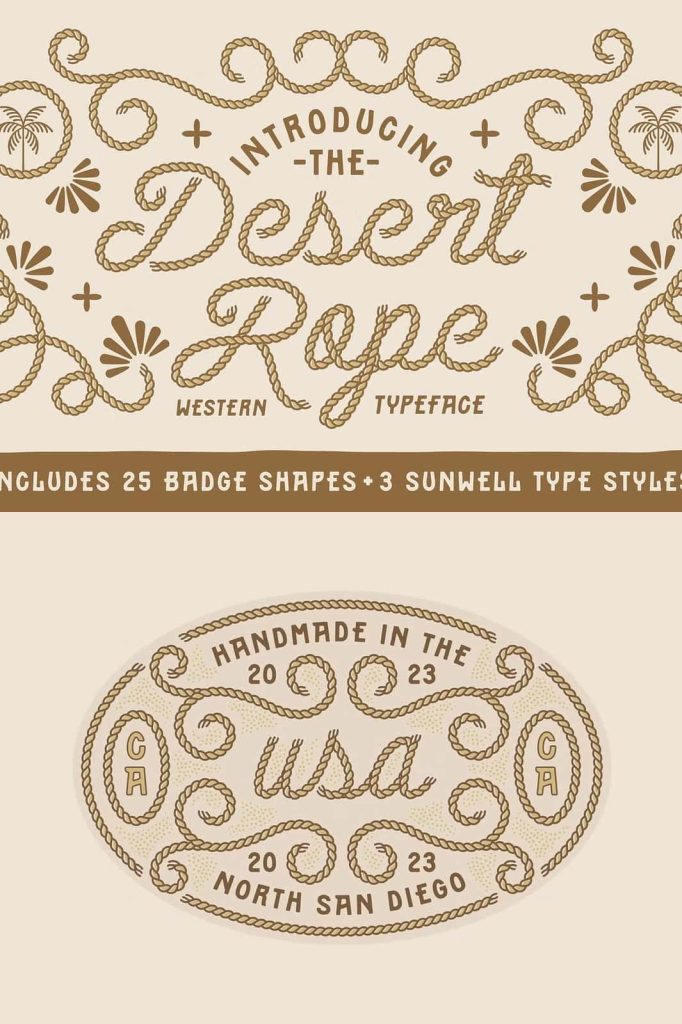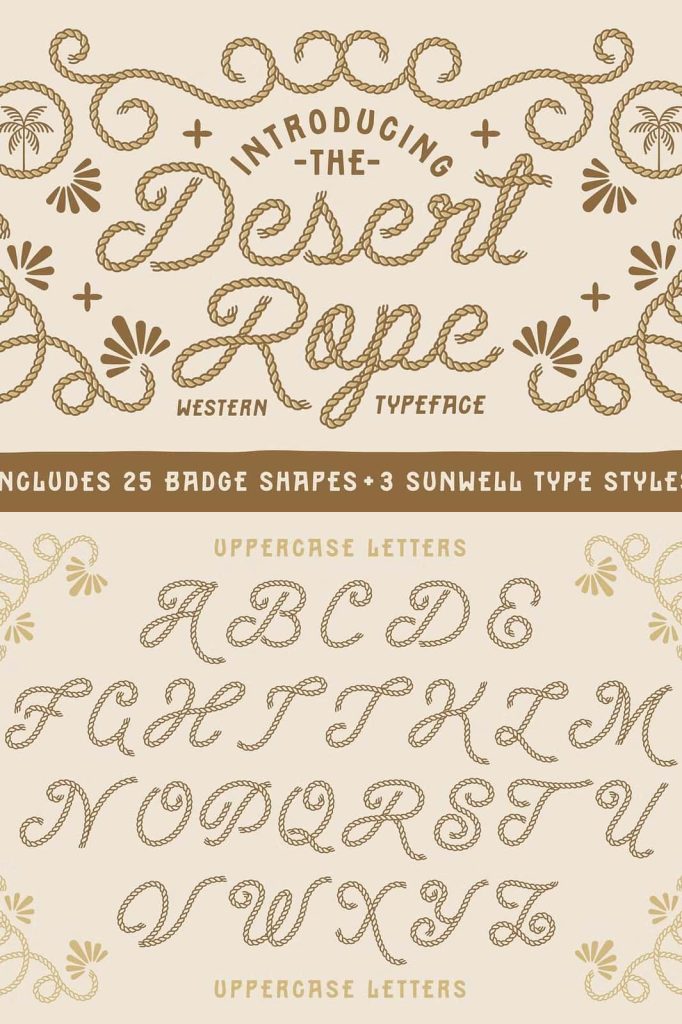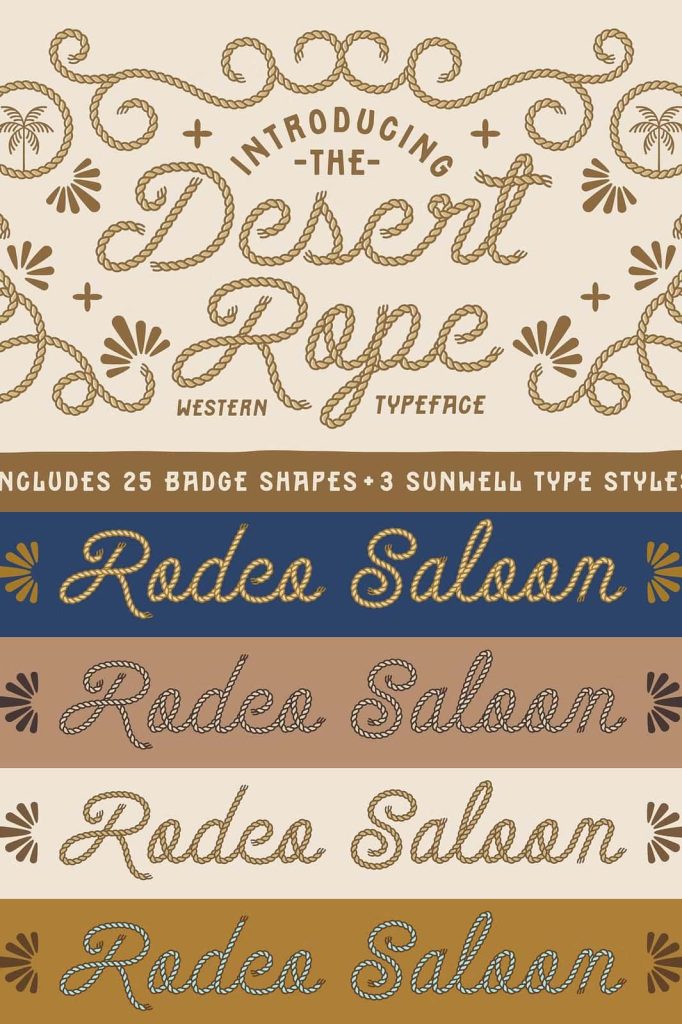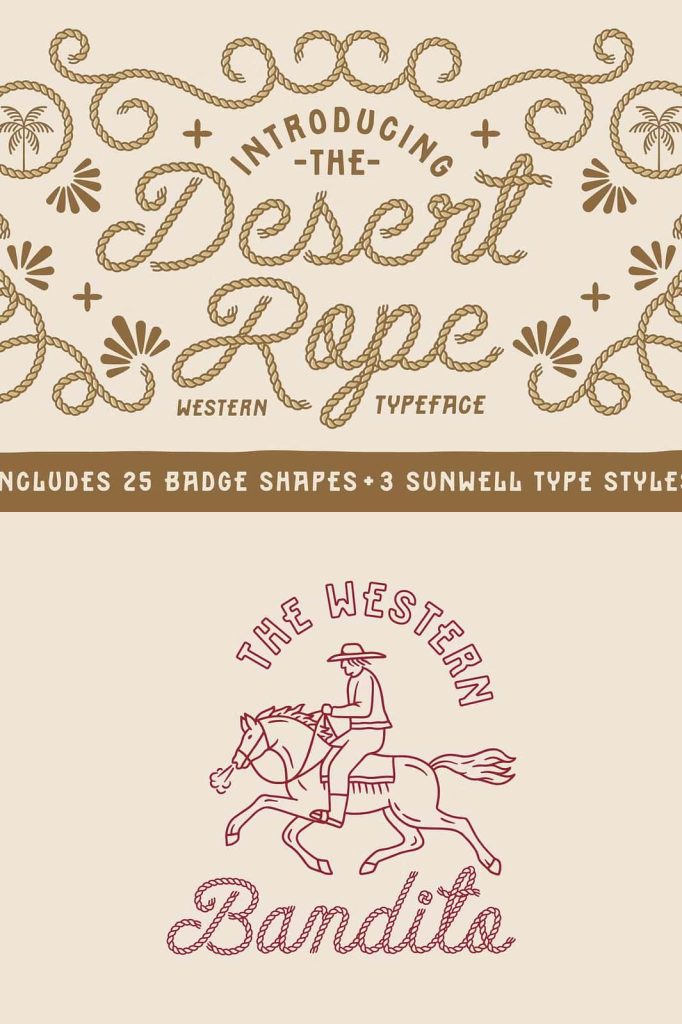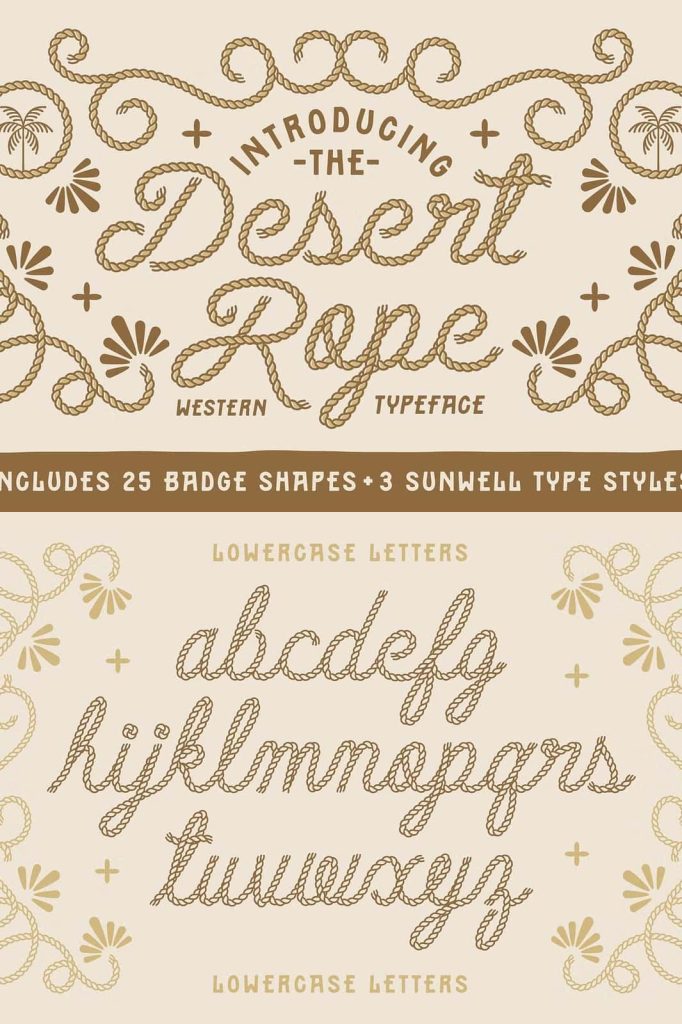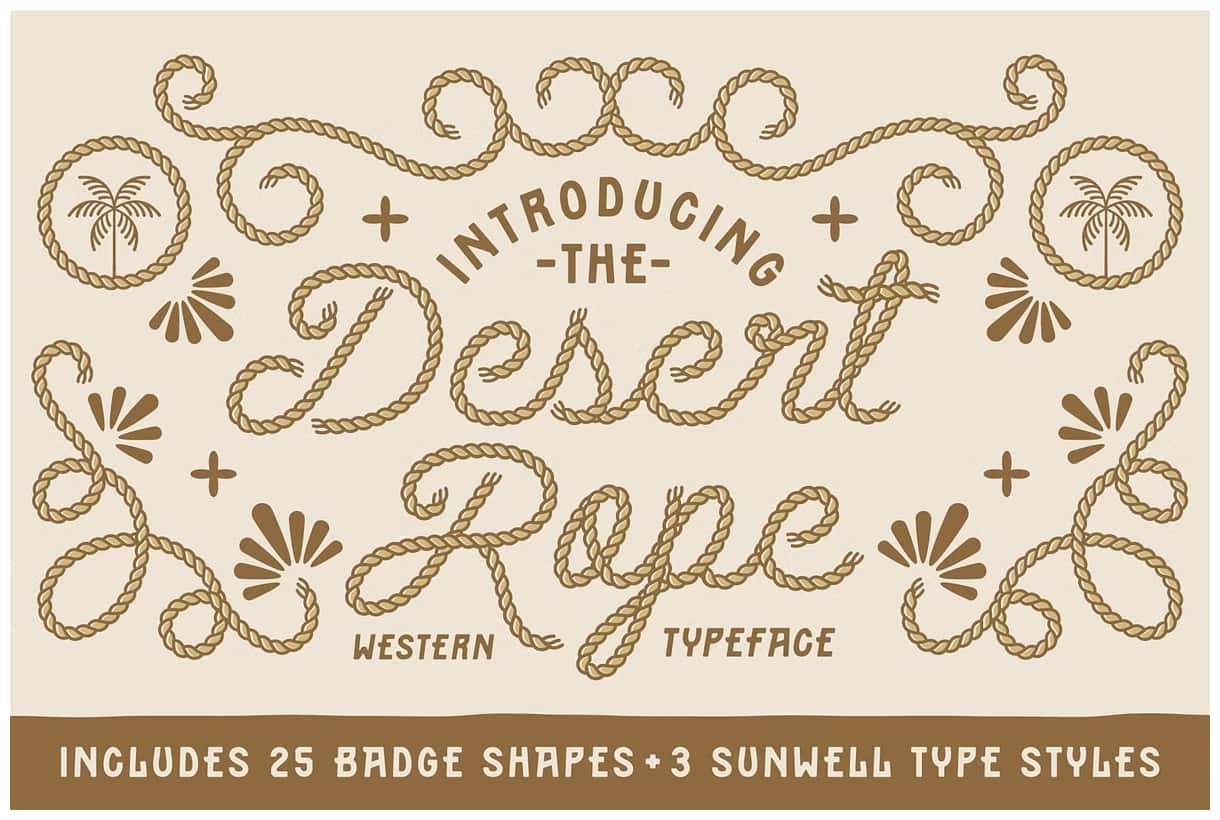
Desert Rope Font Duo: A Dynamic Typeface for Creative Expression
Desert Rope Font Duo delivers a distinctive and expressive typography experience for designers who want to elevate their creative projects. This font duo combines style and functionality, offering a handcrafted aesthetic that feels both modern and organic. Whether you are working on branding, social media graphics, or digital artwork, this font provides the versatility and visual appeal needed to make your designs stand out.
Designed with Smart OpenType Features
Desert Rope Font Duo takes advantage of advanced OpenType features to streamline your design workflow. It uses automatic character alternates and ligatures, allowing letters to connect seamlessly without requiring manual adjustments. This intelligent behavior helps you achieve a natural, flowing look with minimal effort.
Important Note About Letter Connections
The preview images of Desert Rope Font Duo may show extended links or decorative strokes connecting certain characters. These visual elements are part of the presentation and do not appear as standalone glyphs in the downloaded font file. Instead, the font relies on its built-in ligatures and alternates to produce a similar connected effect dynamically within your text.
This approach ensures cleaner performance and greater flexibility when working across different design platforms. It also gives you more control over how the text appears, depending on your layout and spacing preferences.
Perfect for a Wide Range of Projects
Desert Rope Font Duo adapts easily to various design needs. Its unique style makes it suitable for:
- Branding and logo design
- Social media graphics and posts
- Packaging and product labels
- Invitations and greeting cards
- Digital illustrations and lettering projects
The combination of structured forms and organic connections gives your text a handcrafted feel while maintaining readability. This balance makes it a powerful tool for both professional designers and hobbyists.
Why Choose Desert Rope Font Duo
Choosing the right font can significantly impact the effectiveness of your design. Desert Rope Font Duo stands out because it blends automation with artistic detail. You gain access to advanced typographic features without sacrificing ease of use.
Its automatic ligatures reduce the time spent on manual adjustments, while its contextual alternates add subtle variations that enhance visual interest. This combination allows you to create polished, professional designs more efficiently.
Enhance Your Typography Today
If you want to bring a fresh and engaging look to your projects, Desert Rope Font Duo offers a reliable and stylish solution. Activate its OpenType features, experiment with different layouts, and explore how its dynamic character interactions can transform your typography into something truly memorable.